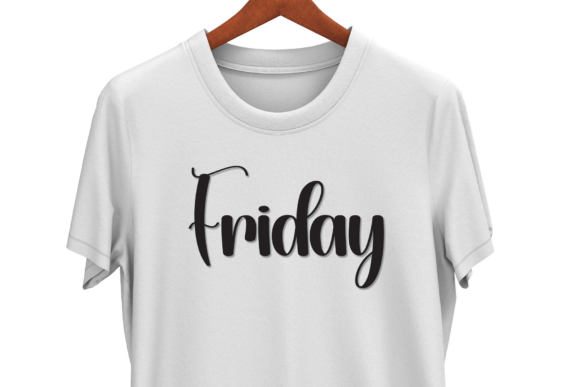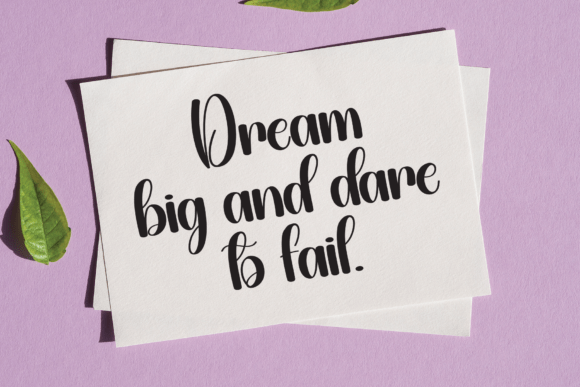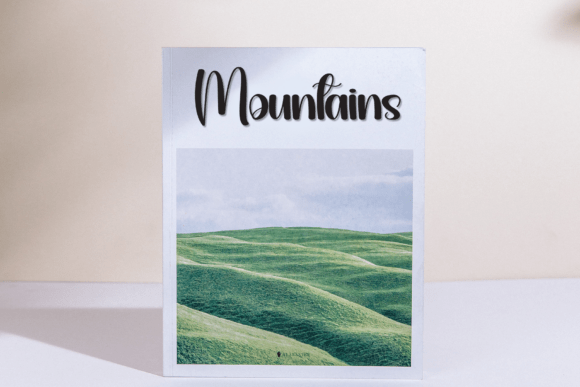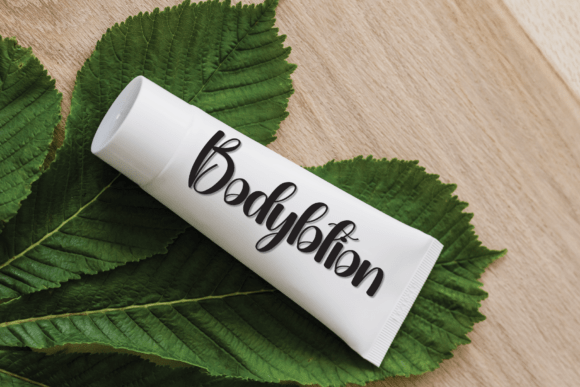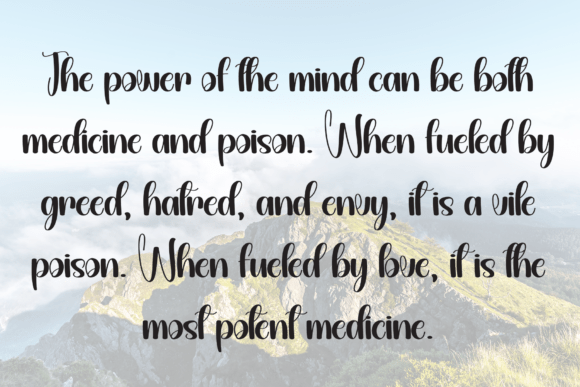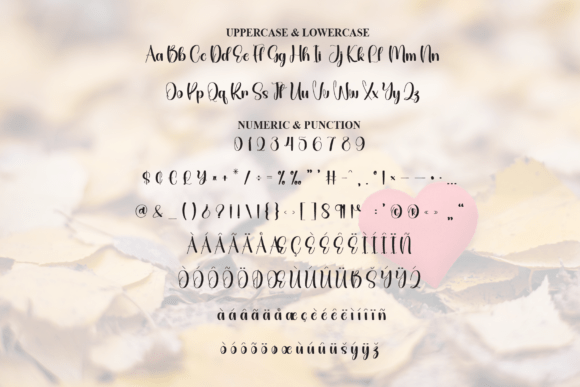
Introducing Autumn Valentines Font: The Perfect Blend of Charm and Elegance
Are you a designer or crafter looking for a font that can add a touch of warmth and romance to your projects? Look no further than the Autumn Valentines Font, a delightful handwritten display font that is sure to captivate your audience. With its delicately sweet and effortlessly friendly vibe, this font artfully marries cuteness and fun in a seamless manner, making it the perfect typographic tool for a wide range of design projects.
A Font that Exudes Warmth and Romantic Allure
Autumn Valentines Font is the perfect choice for wedding invitations, romantic getaways, and other special occasions that call for a touch of elegance and sophistication. Its flowing script and delicate lettering evoke a sense of nostalgia and whimsy, making it an ideal font for couples who want to add a personal touch to their wedding stationery or for designers who want to create beautiful and unique wedding designs.
A Font that’s Playful and Cheerful
But Autumn Valentines Font is not just limited to romantic occasions. Its playful and cheerful vibe makes it an excellent choice for a wide range of design projects, from kids’ party invitations to greeting cards and more. Whether you’re designing for a client or working on a personal project, this font is sure to add a dash of joy and intrigue to your design.
What Makes Autumn Valentines Font So Special?
So, what sets Autumn Valentines Font apart from other fonts on the market? Here are just a few reasons why this font is a must-have for designers and crafters:
• Unique and Fun Design: Autumn Valentines Font features a unique and fun design that’s sure to grab attention. Its delicate lettering and flowing script make it a standout font that’s perfect for designers who want to add a personal touch to their work.
• Versatile: This font is incredibly versatile and can be used for a wide range of design projects, from wedding invitations to greeting cards, and more.
• Easily Readable: Despite its delicate design, Autumn Valentines Font is easily readable, making it perfect for both digital and print projects.
• High-Quality: This font is a high-quality, professionally designed font that’s sure to meet the needs of even the most discerning designers.
How to Use Autumn Valentines Font in Your Design Projects
Using Autumn Valentines Font in your design projects is easy. Here are a few tips to get you started:
• Pair it with Other Fonts: Autumn Valentines Font pairs beautifully with other fonts, making it easy to create stunning contrast and visual interest in your designs.
• Use it for Headlines and Titles: This font is perfect for headlines and titles, where its unique design can really shine.
• Add it to Your Digital and Print Projects: Autumn Valentines Font is perfect for both digital and print projects, from social media graphics to wedding invitations and more.
In conclusion, Autumn Valentines Font is a must-have for designers and crafters who want to add a touch of charm and elegance to their projects. With its unique and fun design, versatility, and high-quality craftsmanship, this font is sure to become a favorite in your design toolkit. So why wait? Download Autumn Valentines Font today and start creating stunning designs that will leave a lasting impression on your audience!